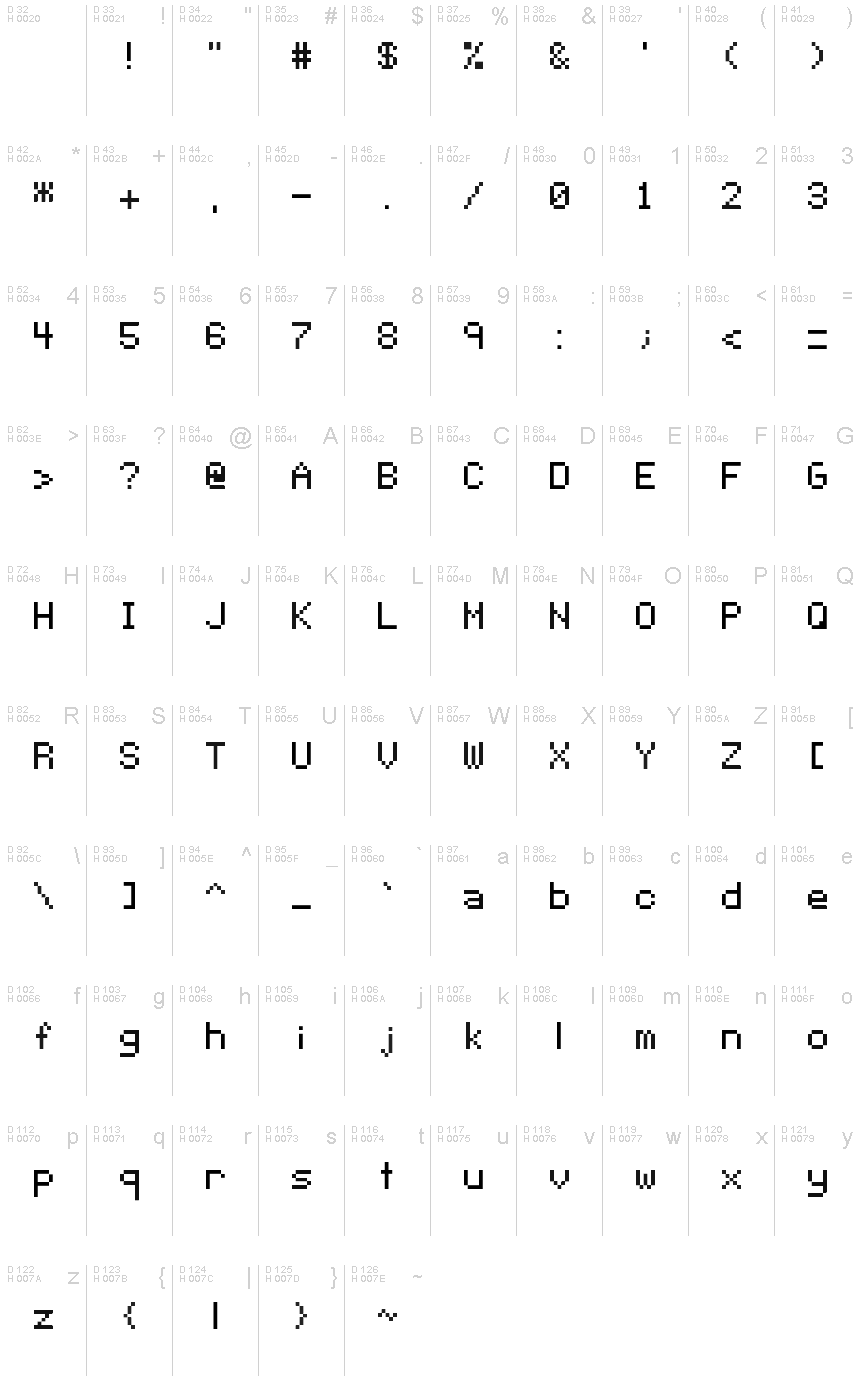
Pixeltype Regular
Pixeltype is a striking bitmap font with a distinctly pixelated aesthetic. Designed by thejman0205, this font exudes a retro-inspired charm, evoking the nostalgic charm of early digital technology. Its sharp, angular letterforms and clean, grid-like structure lend it a refreshingly minimalist appeal.
Pixeltype's strong visual character makes it an excellent choice for a wide range of design applications, from vintage-inspired branding and gaming interfaces to modern, typographic-driven layouts. Its unique style and versatility make it a compelling option for designers seeking to add a touch of digital-era flair to their projects.